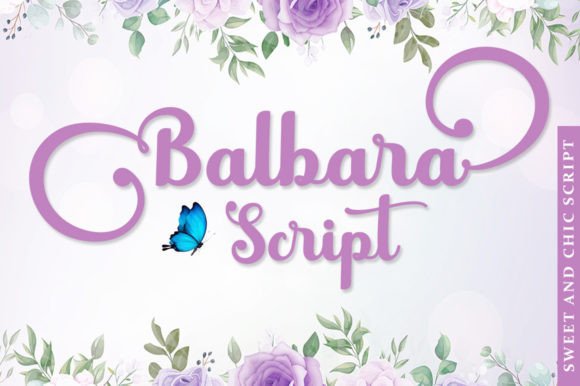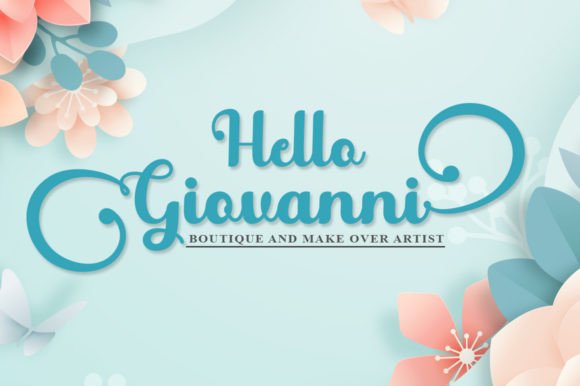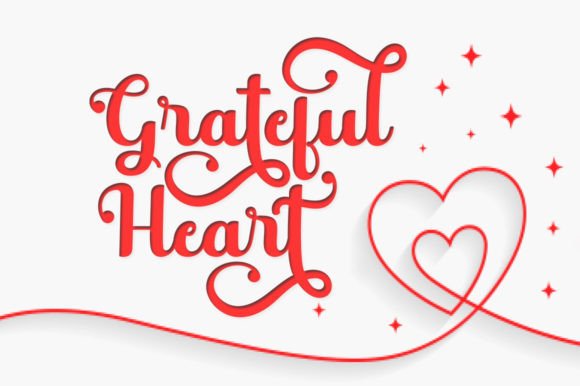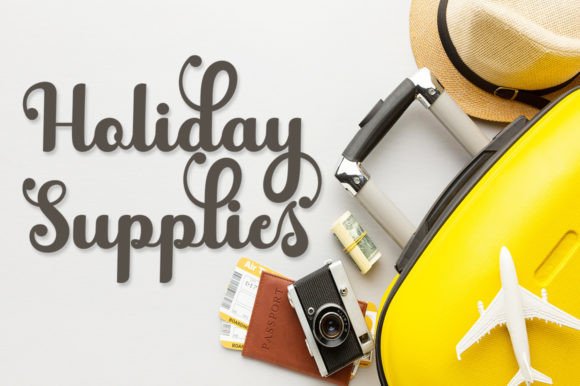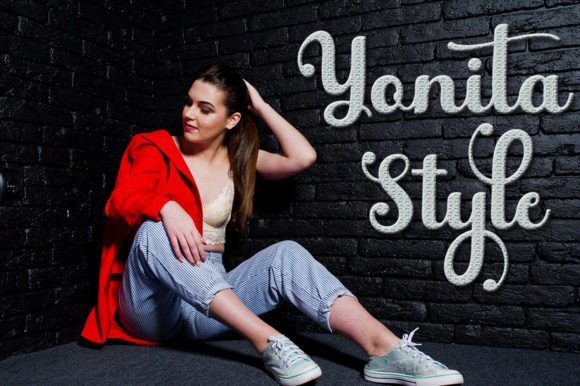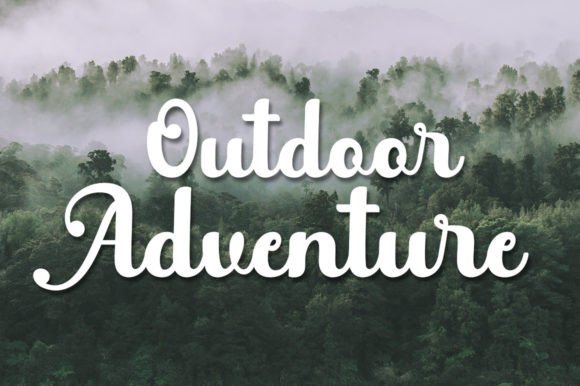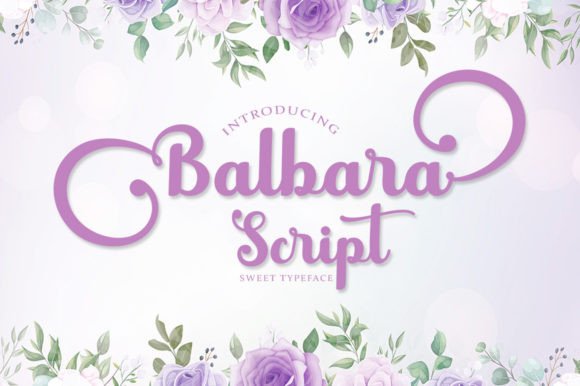
Balbara Script Font
About Balbara Script Font
“Balbara Script” is a font that exudes style and incredible elegance, making it a perfect choice for various design applications. This font is characterized by its smooth curves and graceful letterforms, and it shines particularly in fashion branding and editorial designs. When you use “Balbara Script,” you’ll discover a world of endless design possibilities.
One of the standout features of “Balbara Script” is its innate sense of style and elegance. The font’s meticulously crafted characters and flowing curves create a visually stunning composition. “Balbara Script” adds a touch of sophistication and glamour to your designs, making it an ideal choice for projects where you want to convey a sense of high fashion and refinement.
The font’s exceptional versatility ensures that it looks stunning in various design contexts. Whether you’re working on fashion branding materials that demand a unique and luxurious touch, creating editorial layouts that require a font with editorial flair, or exploring any other creative project where style and elegance are paramount, “Balbara Script” seamlessly adapts to your creative vision.
“Balbara Script” stands out as a font that brings a sense of prestige and beauty to your designs. Its elegant handwritten style adds a personal and authentic touch to your projects, making them feel luxurious and inviting. The inclusion of PUA encoding provides easy access to a wide range of glyphs and ligatures, enabling you to explore creative possibilities effortlessly.
In conclusion, “Balbara Script” is a font that embodies style and elegance, making it an exceptional choice for a wide array of design projects, particularly in the fashion and editorial realms. Its versatility, sophisticated style, and capacity to add a touch of glamour and refinement make it an invaluable tool for designers seeking to create captivating and visually pleasing designs. Embrace the style and elegance of “Balbara Script” in your next project, and watch as it transforms your creations into works of art that resonate with sophistication and glamour.